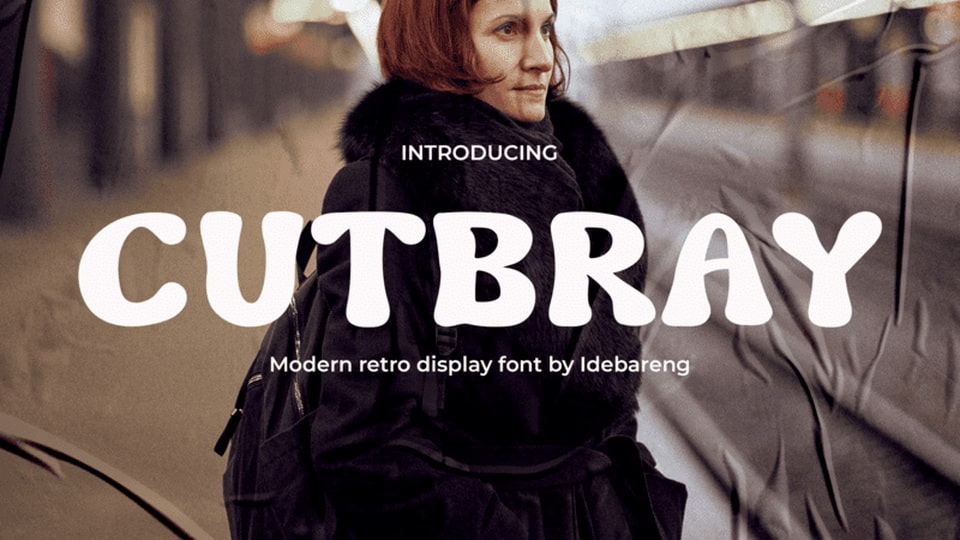
Download Cutbray font, a modern retro display typeface that captures the essence of classic design with a contemporary twist. Cutbray font features sharp, clean lines and bold shapes that make it perfect for a wide range of design applications.
Designer: IDEBARENG